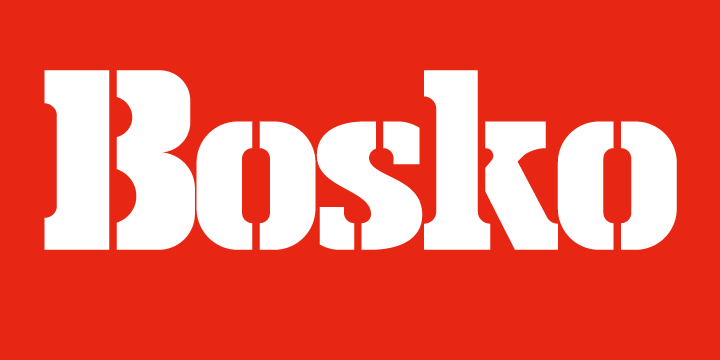
• Bosko™
A robust slab serif typeface that combines classic proportions with contemporary styling. These carefully crafted letterforms are best suited for use on book jackets, news headlines, packaging, posters and t-shirts. Details include four distinct styles, a full character set, manually edited kerning and Euro symbol.